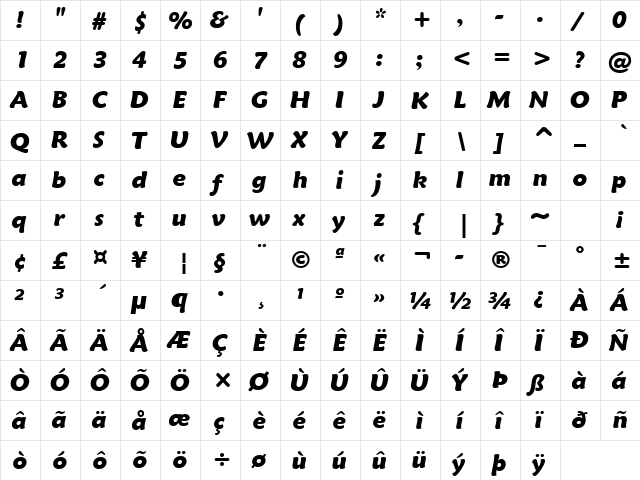
Maiandra Black Italic GD Italic
Design Context for Maiandra Black Italic GD Typeface
Maiandra Black Italic GD takes a measured approach to typography — its balanced proportions and neutral character make it a reliable workhorse for both digital and print work. Its italic angle brings a sense of urgency and motion to the letterforms.
Pro Tip: Try Maiandra Black Italic GD for annotation and caption copy alongside an upright companion — the contrast in angle creates a dynamic but ordered typographic system.